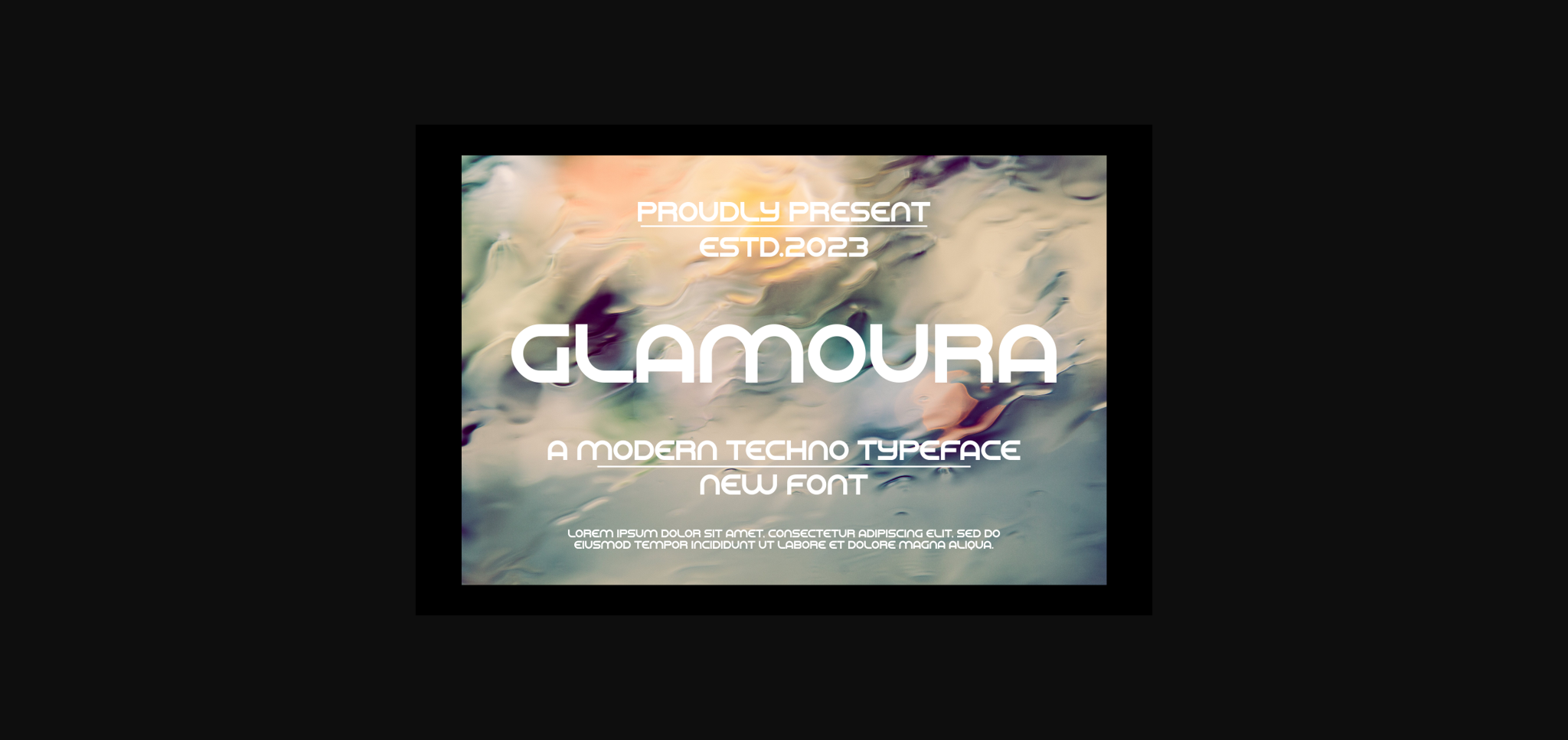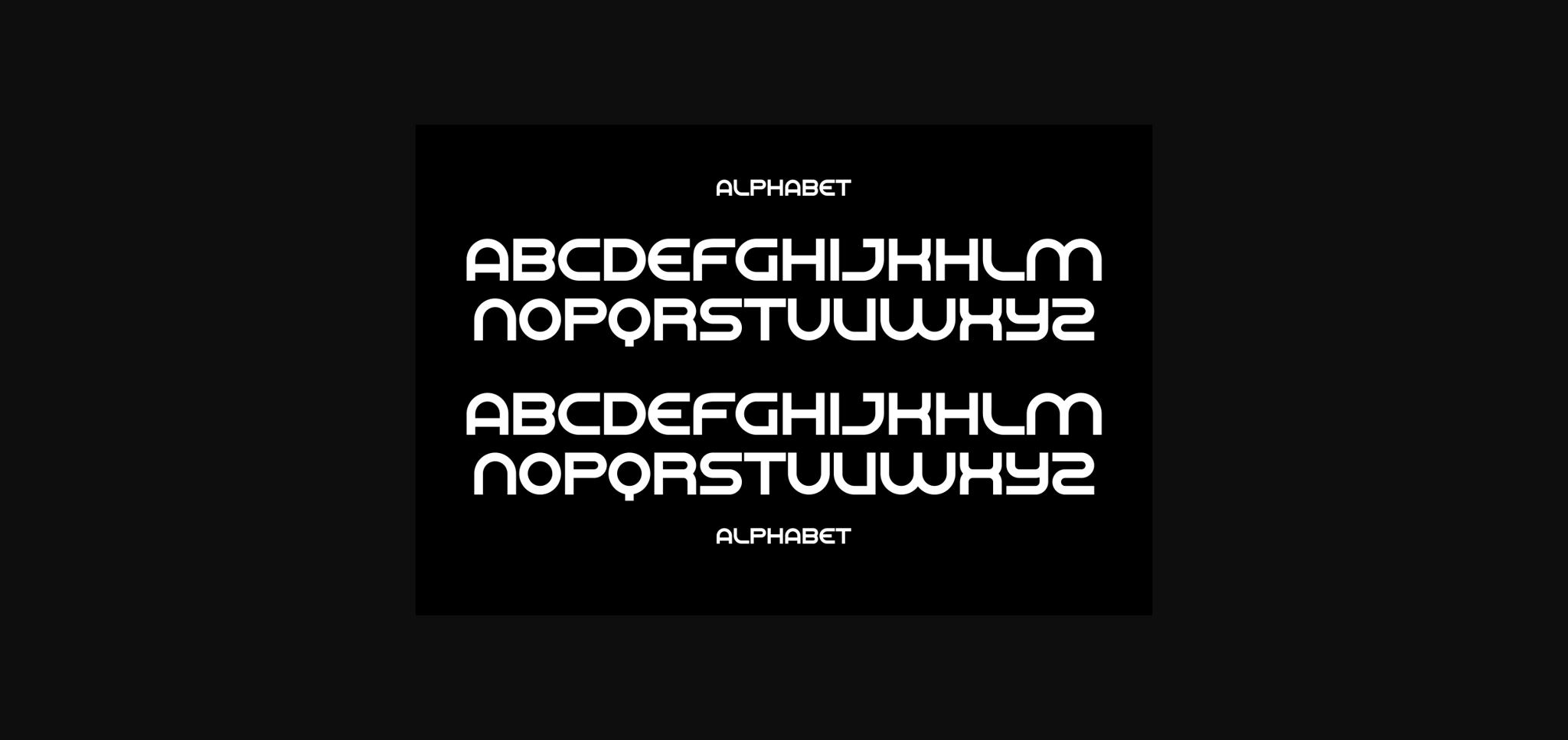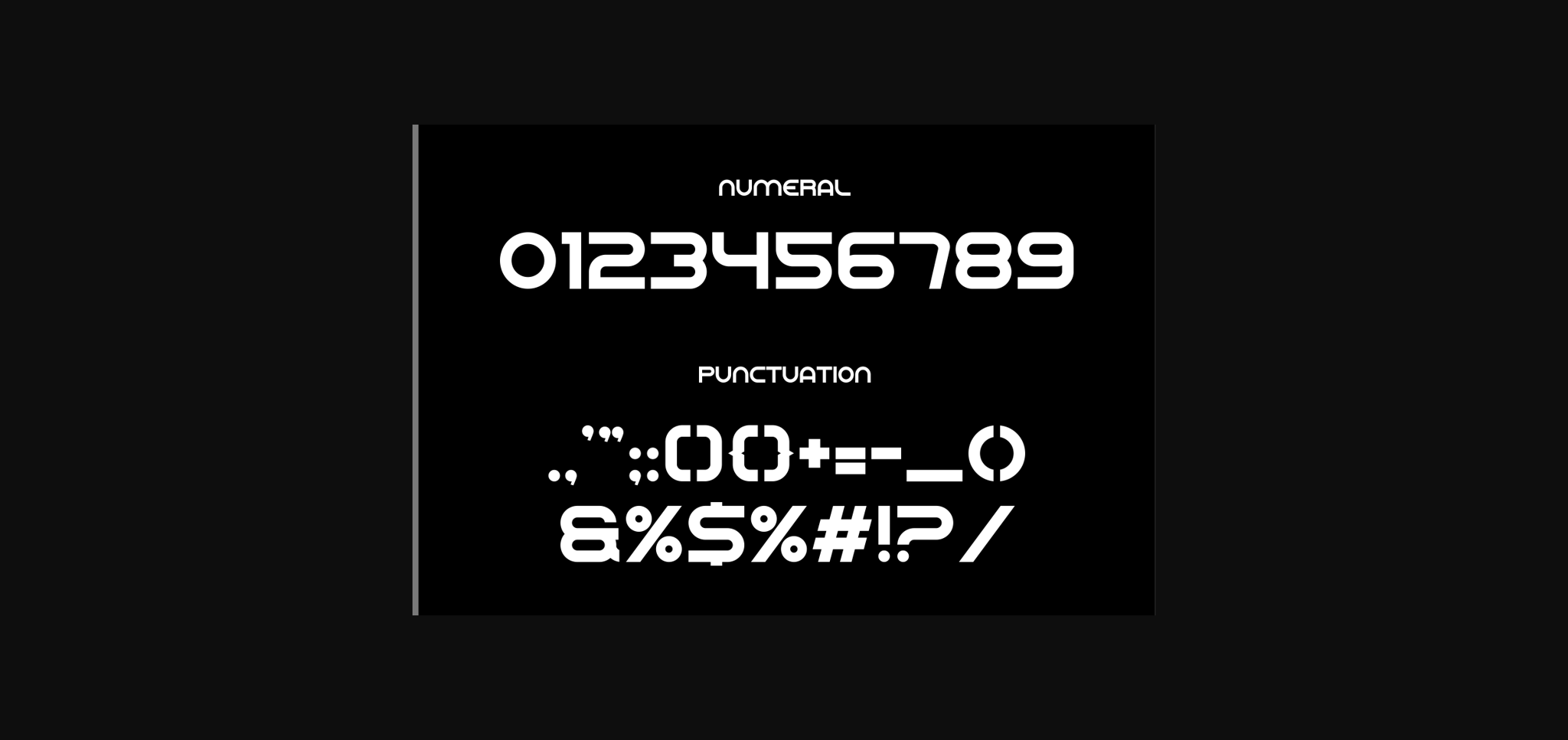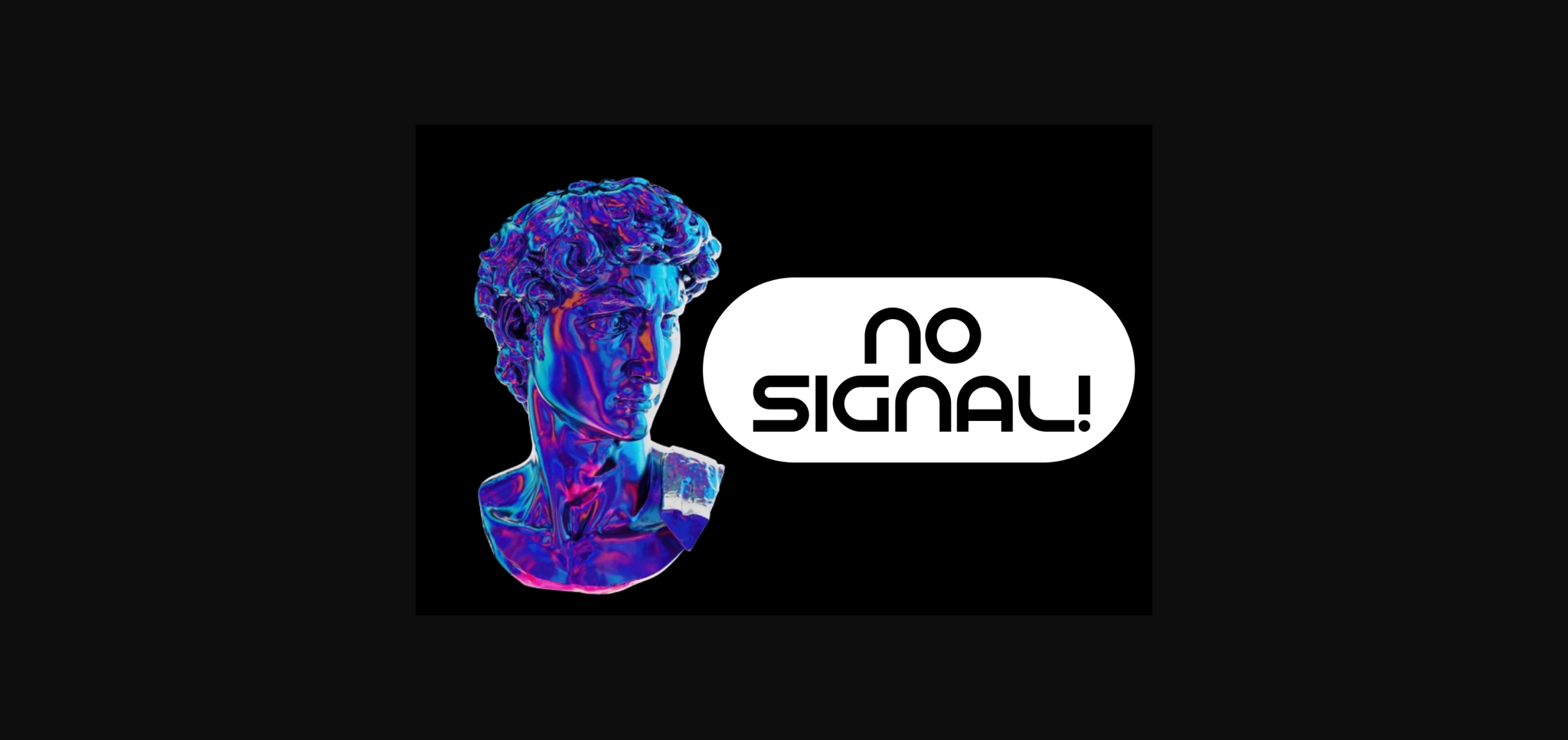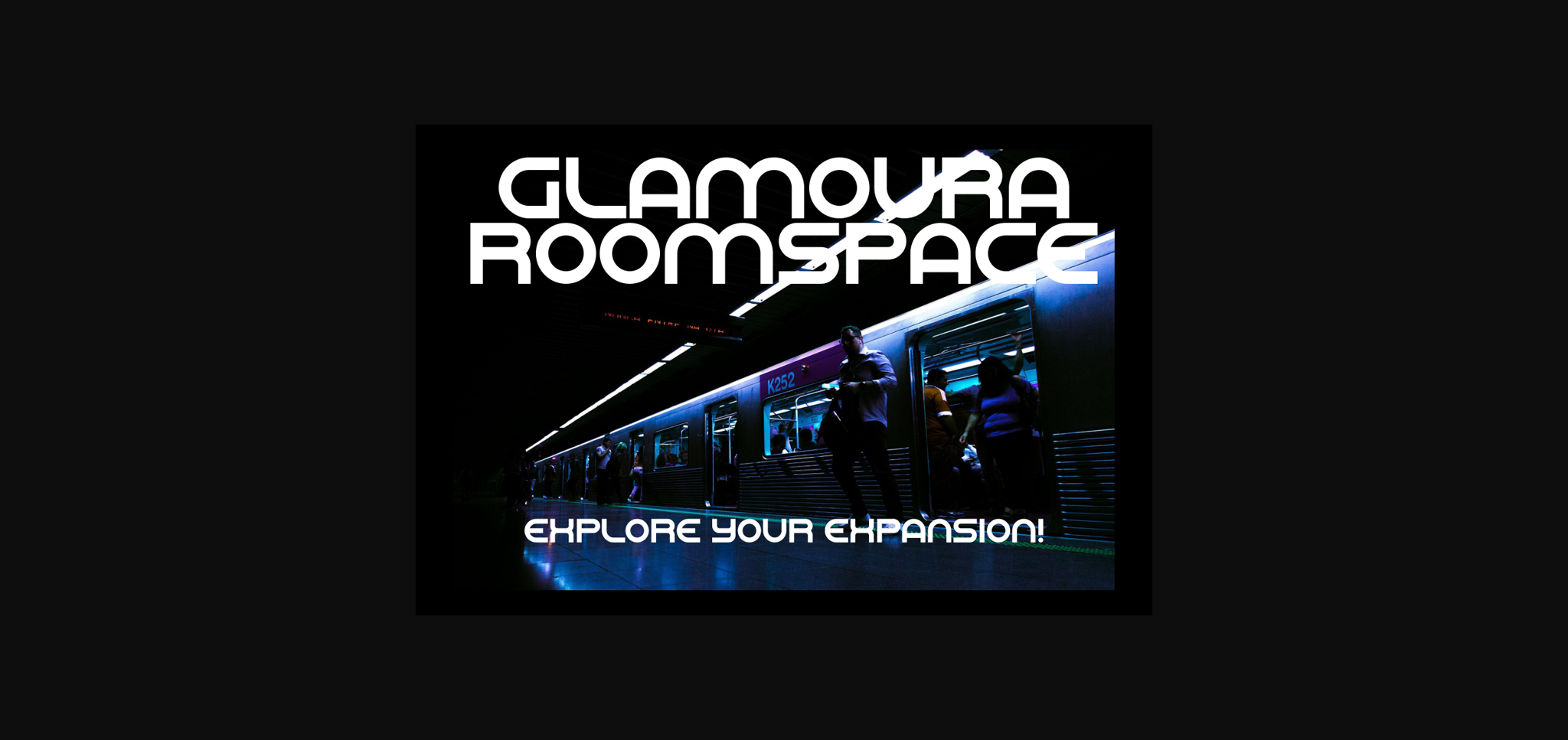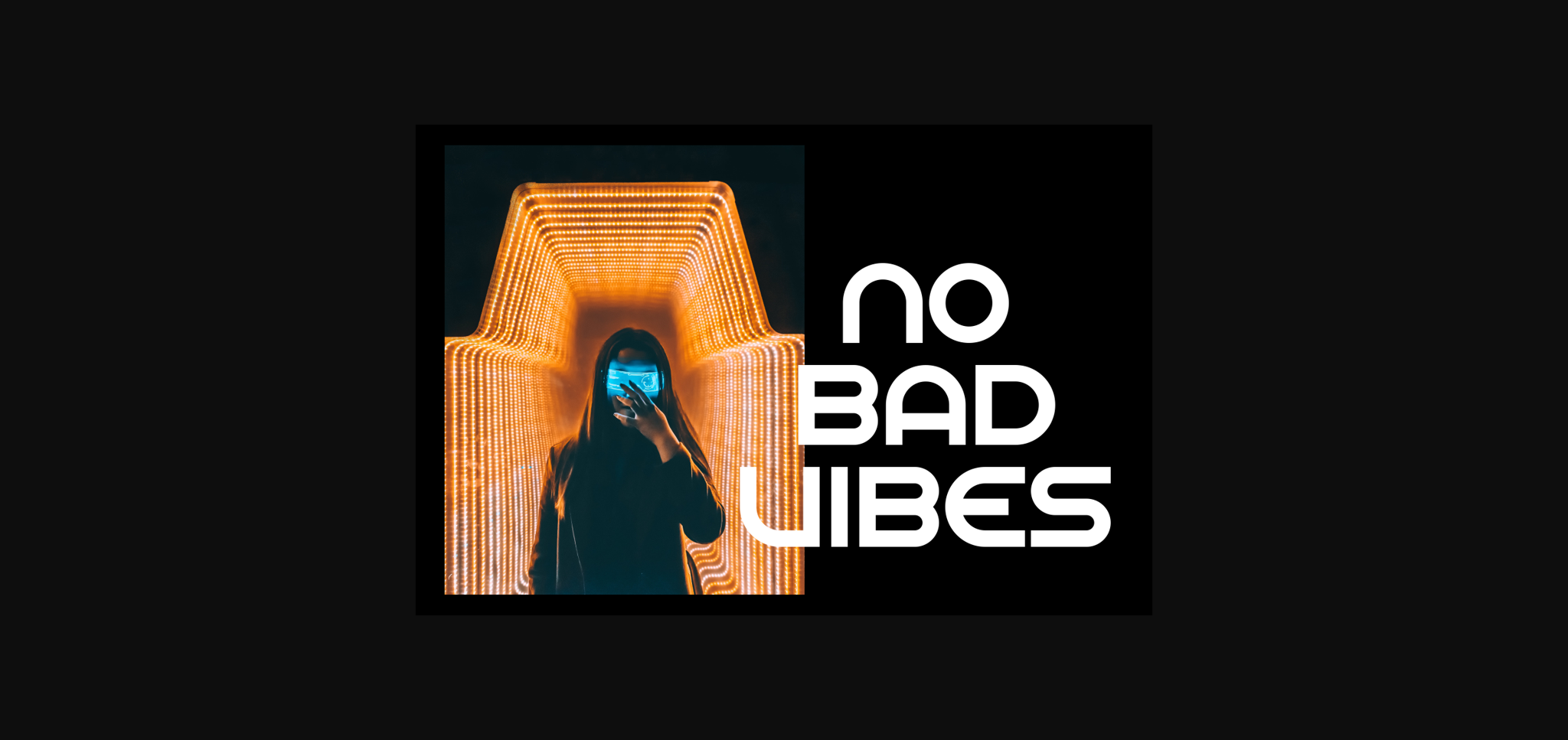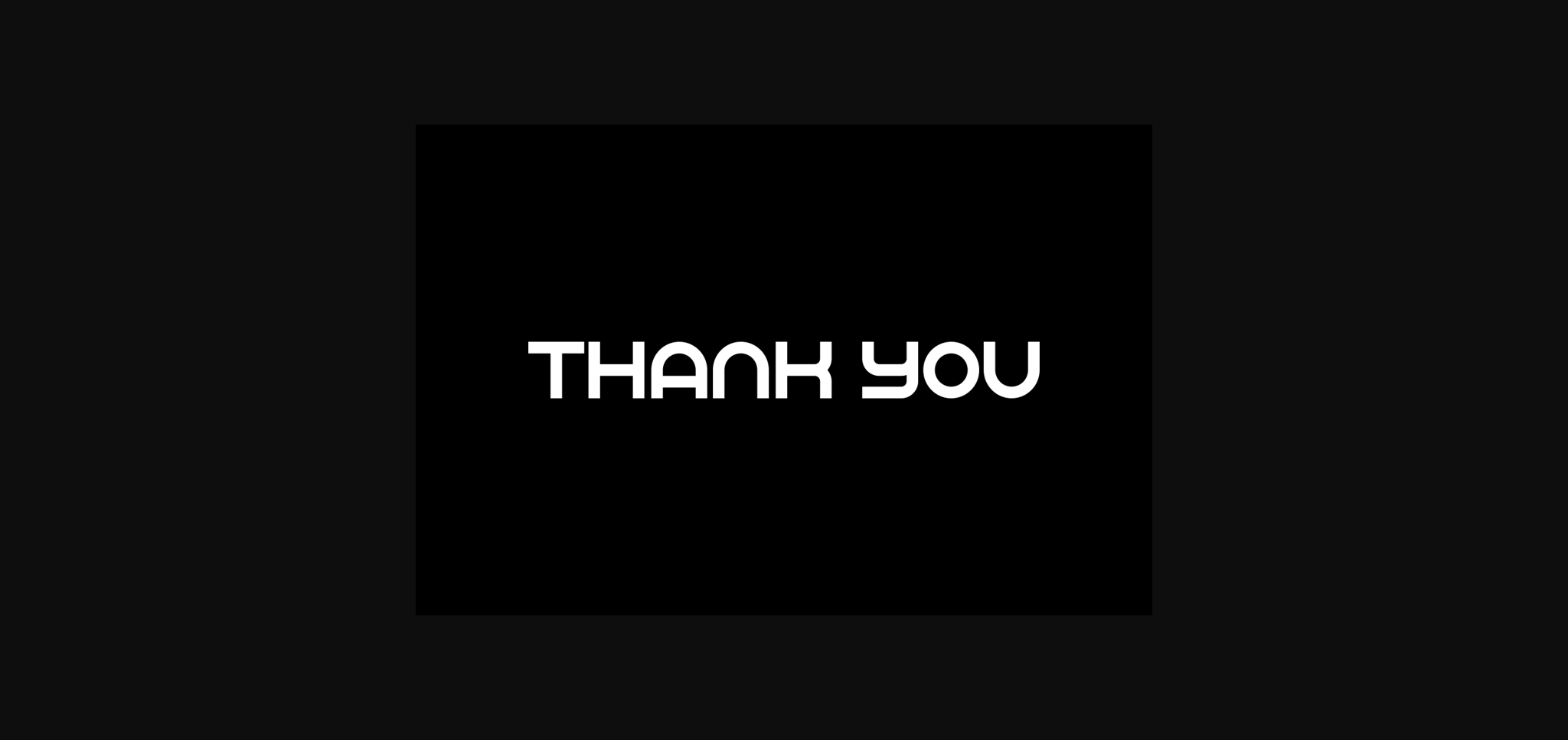
HomeSans Serif FontsGlamoura Font Sans Serif Fonts Glamoura Font FacebookXPinterestWhatsApp 1 of 9 ... Glamoura Font Poster 2... Glamoura Font Poster 3... Glamoura Font Poster 4... Glamoura Font Poster 5... Glamoura Font Poster 6... Glamoura Font Poster 7... Glamoura Font Poster 8... Glamoura Font Poster 9... About Glamoura Font **GLAMOURA** is a thick typeface with more futuristic letter shapes, making it perfect for creating (or recreating) the concise look of film poster production credits. DOWNLOAD NOW People also explored YWFT Bit Hush Hush Marion Summers Bella Qalbiya Font Love and Faith Font Southfield Font Kallio Brush Stooha Font Blora Font 339 0 TagsGlamoura Font Previous articleAuthentic FontNext articleCreami Smooties Font LEAVE A REPLY Cancel reply Comment: Please enter your comment! Name:* Please enter your name here Email:* You have entered an incorrect email address! Please enter your email address here Website: Save my name, email, and website in this browser for the next time I comment. Personal Use Free Boronic Personal Use Free Read more about this font Hallo Betty Personal Use Free Read more about this font Fifty Five Personal Use Free Read more about this font Kredit Personal Use Free Read more about this font BLOG Free vs Paid Fonts: Why Investing in Premium Fonts Is Worth It Free vs Paid Fonts: Why Premium Fonts Are Worth It in 2025 The debate of free vs paid fonts continues in the design world. While... Top 7 Google Fonts Alternatives for Faster and Privacy-Friendly Web Design (2025) Where to Buy American Fonts Online in 2024 Elegant Wedding Invitation Fonts – Handwritten & Script Fonts